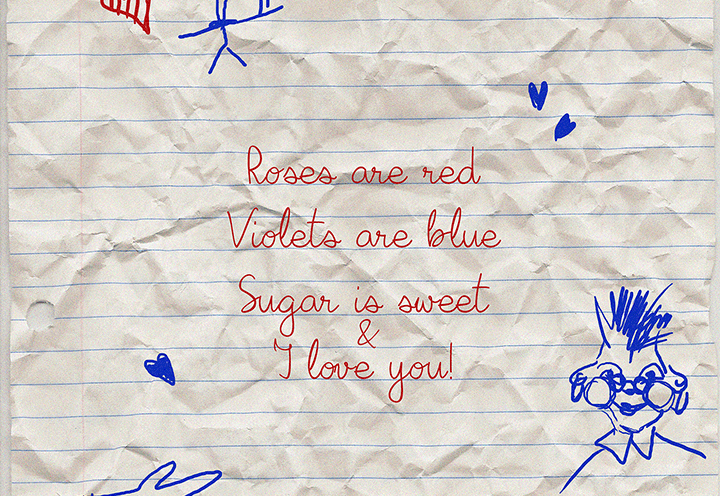
HomeScript FontsBilius Font Script Fonts Bilius Font FacebookXPinterestWhatsApp About Bilius Font Bilius is a unique typeface with a hand written look. DOWNLOAD NOW People also explored Scrapbook Font Eisha Script Joos Rilex Vasaggy Font Populuxe Alex Bentteke Font Destination Font Maru Rabbit Font Autumn Sunset Font 313 0 TagsBilius Font Previous articleApple Cider Daydreams FontNext articleGood Karma Font LEAVE A REPLY Cancel reply Comment: Please enter your comment! Name:* Please enter your name here Email:* You have entered an incorrect email address! Please enter your email address here Website: Save my name, email, and website in this browser for the next time I comment. Personal Use Free The Shocker Personal Use Free Read more about this font Jurnal Personal Use Free Read more about this font Stronger Personal Use Free Read more about this font Archeology Personal Use Free Read more about this font BLOG Using Fonts in Digital Marketing: Tips to Strengthen Your Brand Identity In the realm of digital marketing, every visual element plays a crucial role in shaping a brand's identity, and fonts are no exception. The... Where to Buy American Fonts Online in 2024 Modern Sans-Serif Fonts That Brands Love in 2025 Top 7 Google Fonts Alternatives for Faster and Privacy-Friendly Web Design (2025)